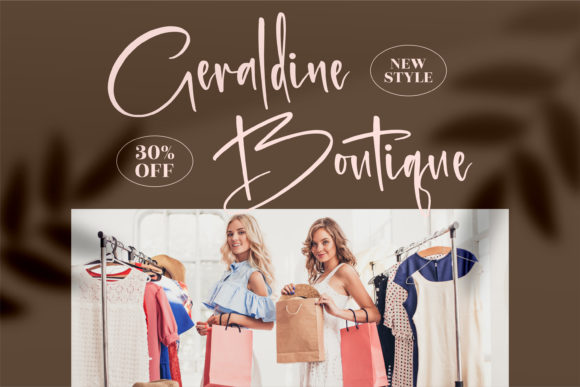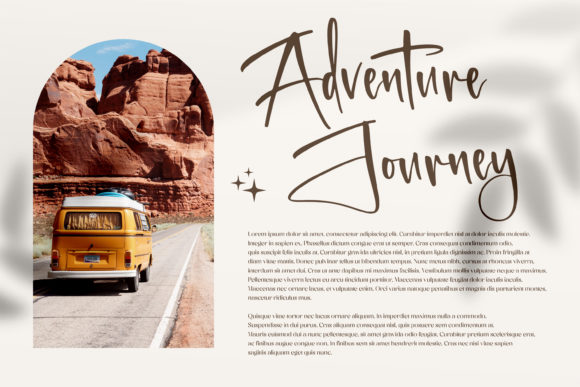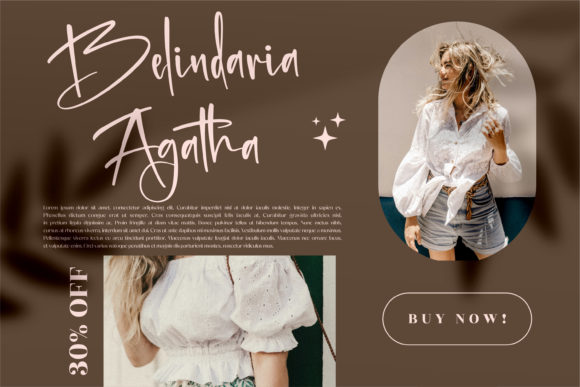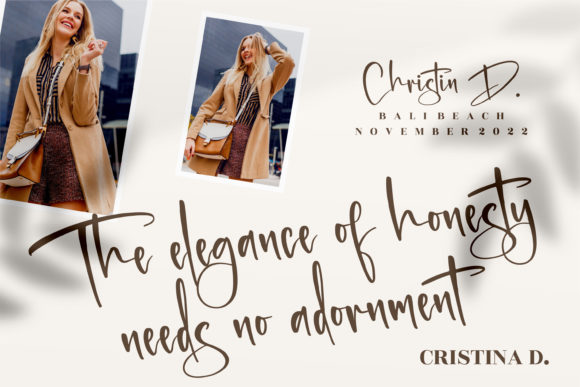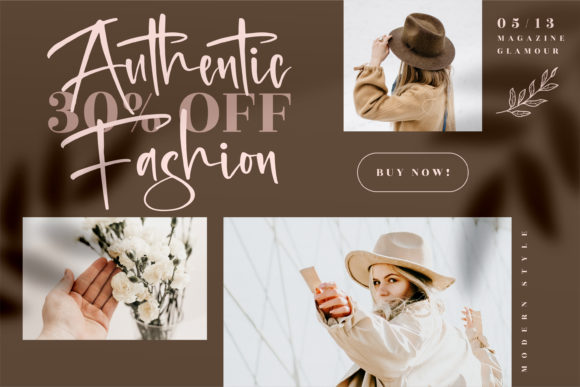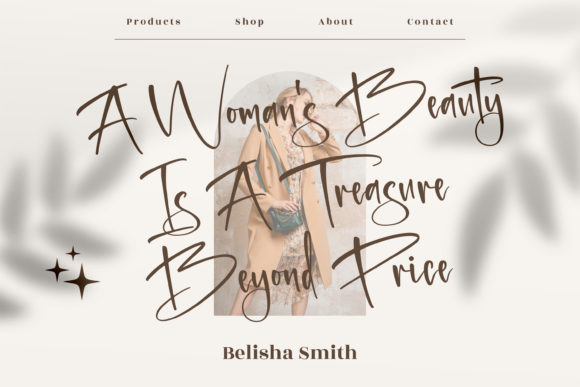
Discover the Beauty of Freestyle Lettering Font: Elevate Your Designs with a Touch of Elegance
Are you a designer or crafter looking for a font that can add a touch of elegance and sophistication to your projects? Look no further than the Freestyle Lettering Font. This stunning handwritten font is a masterpiece of thin and beautiful lettering, with distinct and well-rounded letters that are sure to capture your heart.
The Unique Charm of Freestyle Lettering Font
Freestyle Lettering Font is a one-of-a-kind font that boasts a sweet and charming style. Its delicate and cursive letters are carefully crafted to create a sense of fluidity and movement, making it perfect for a wide range of design projects. Whether you’re creating a wedding invitation, a branding campaign, or a social media graphic, this font is sure to add a touch of whimsy and romance to your work.
Key Features of Freestyle Lettering Font
- Thin and beautiful handwritten font: Freestyle Lettering Font features delicate and cursive letters that are perfect for creating elegant and sophisticated designs.
- Distinct and well-rounded letters: Each letter is carefully crafted to create a sense of fluidity and movement, making this font a standout in any design project.
- Sweet and charming style: The font’s sweet and charming style makes it perfect for a wide range of design projects, from wedding invitations to branding campaigns.
- Easy to read and versatile: Despite its delicate nature, Freestyle Lettering Font is easy to read and can be used in a variety of design projects, from digital graphics to print materials.
How to Use Freestyle Lettering Font in Your Designs
Freestyle Lettering Font is a versatile font that can be used in a wide range of design projects. Here are a few ideas to get you started:
- Wedding invitations and stationery: Add a touch of elegance and sophistication to your wedding invitations and stationery with Freestyle Lettering Font.
- Branding and packaging: Use Freestyle Lettering Font to create a unique and memorable brand identity that will set your business apart.
- Social media graphics: Add a touch of whimsy and romance to your social media graphics with Freestyle Lettering Font.
- Digital and print materials: Use Freestyle Lettering Font in your digital and print materials, such as brochures, flyers, and business cards.
Tips and Tricks for Working with Freestyle Lettering Font
Here are a few tips and tricks to help you get the most out of Freestyle Lettering Font:
- Use it with contrasting colors: Freestyle Lettering Font looks stunning when paired with contrasting colors. Try pairing it with bold and bright colors to create a striking design.
- Experiment with different sizes: Don’t be afraid to experiment with different sizes and scales when using Freestyle Lettering Font. It can be used in large and small sizes, and can be adjusted to fit your design needs.
- Pair it with other fonts: Freestyle Lettering Font can be paired with other fonts to create a unique and interesting design. Try pairing it with a bold sans-serif font for a striking contrast.
Freestyle Lettering Font is a beautiful and elegant handwritten font that is sure to elevate your designs to the next level. Its delicate and cursive letters make it perfect for a wide range of design projects, from wedding invitations to branding campaigns. With its sweet and charming style, Freestyle Lettering Font is a must-have font for any designer or crafter looking to add a touch of elegance and sophistication to their work.